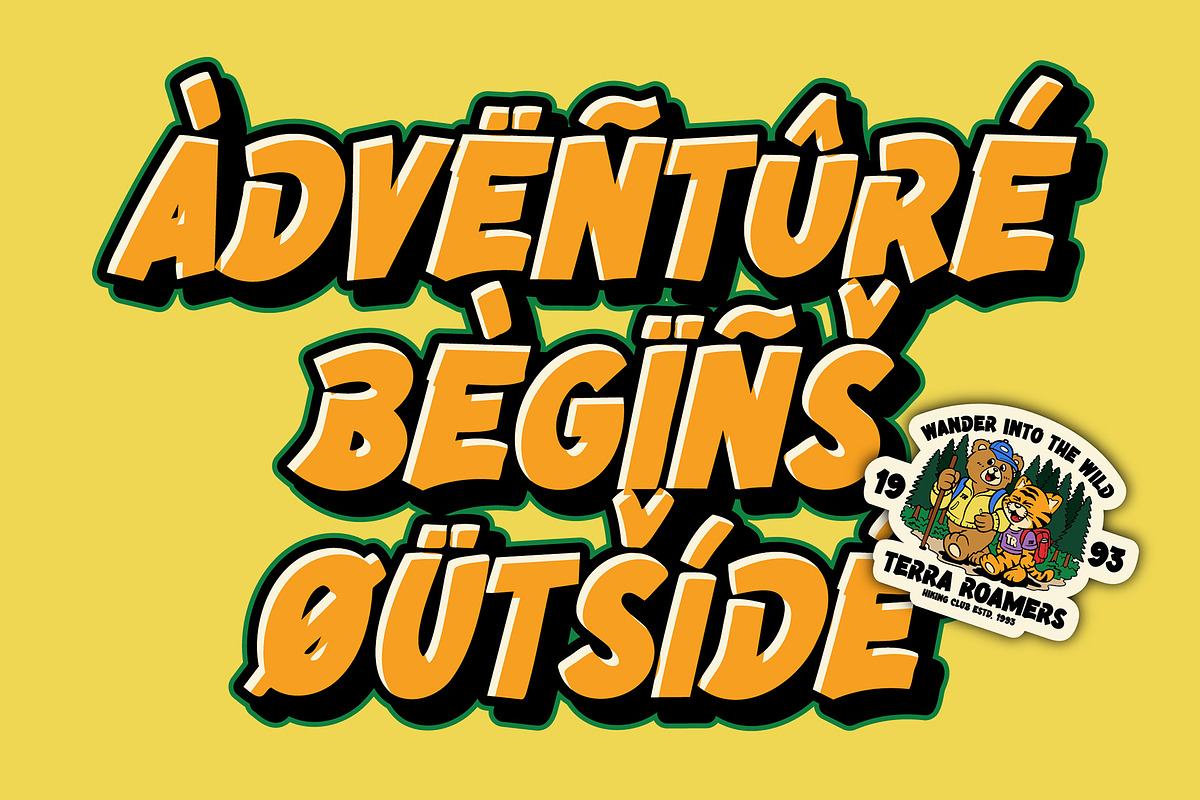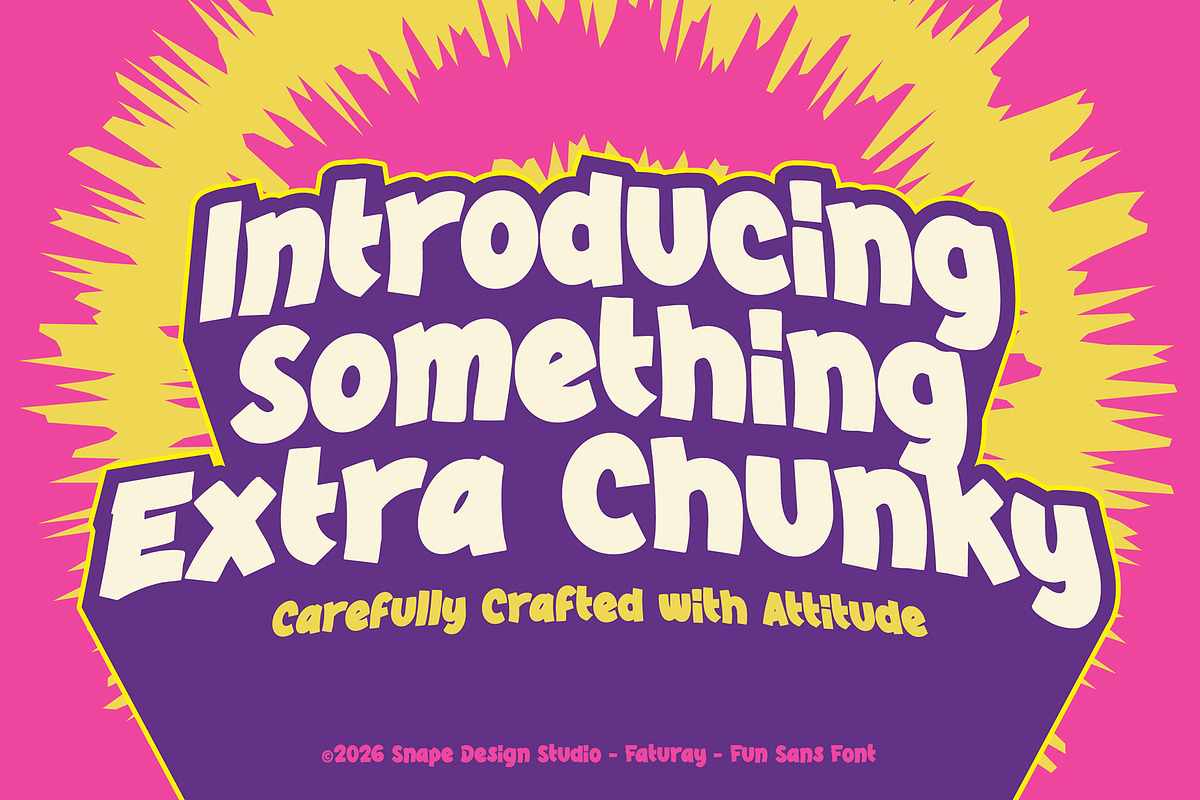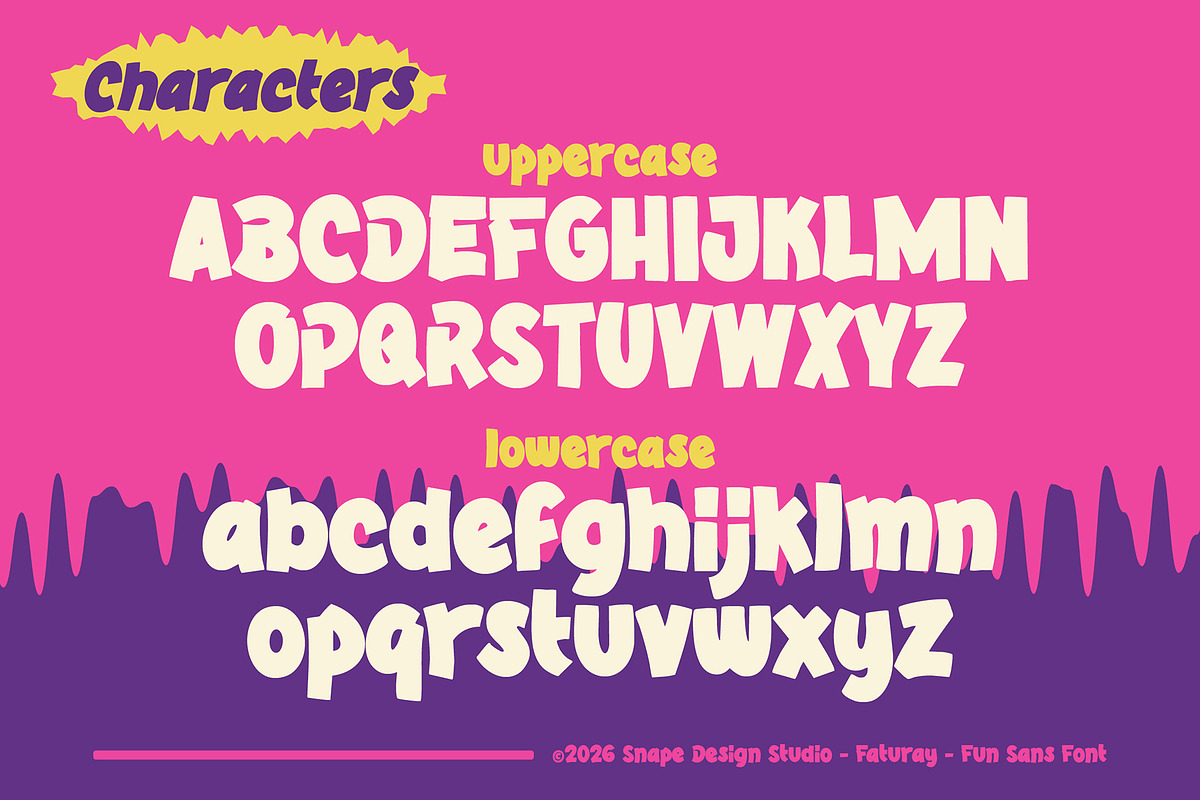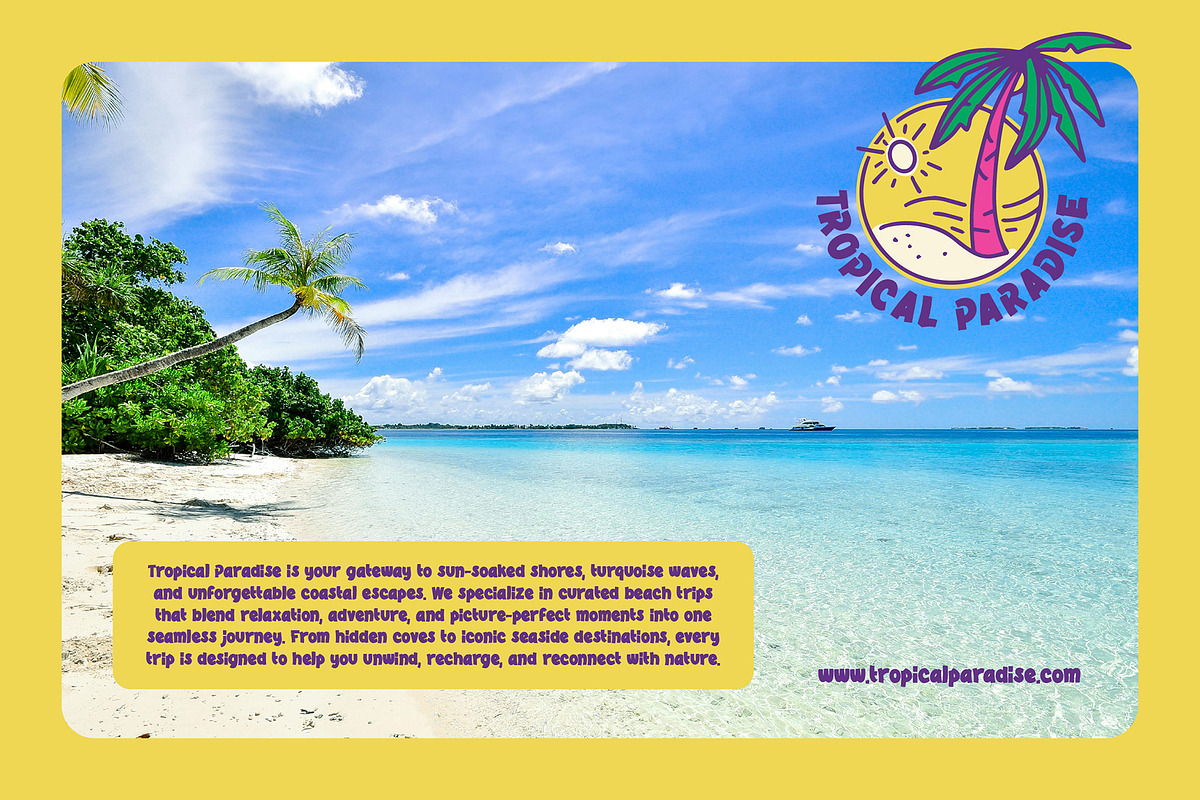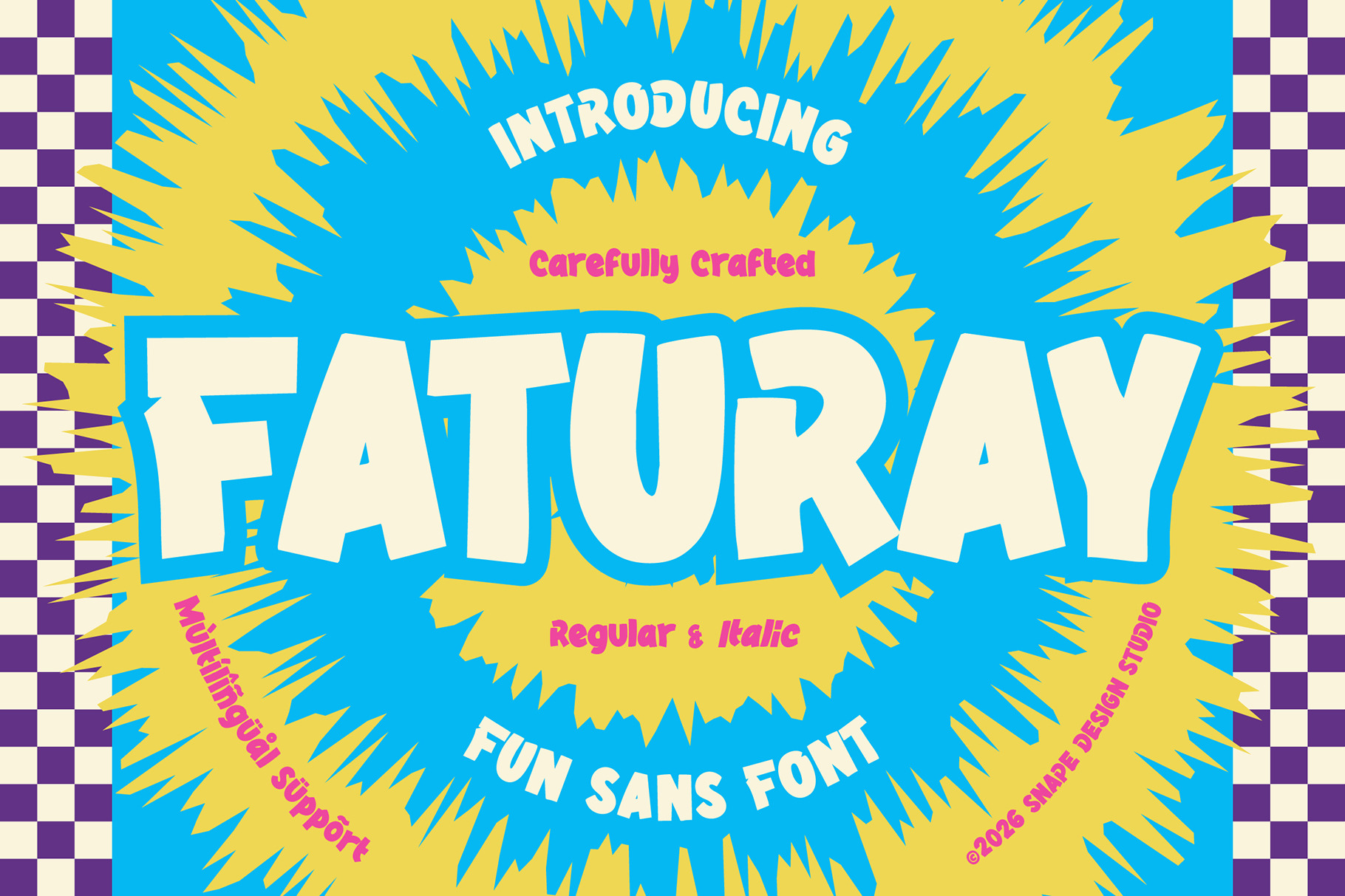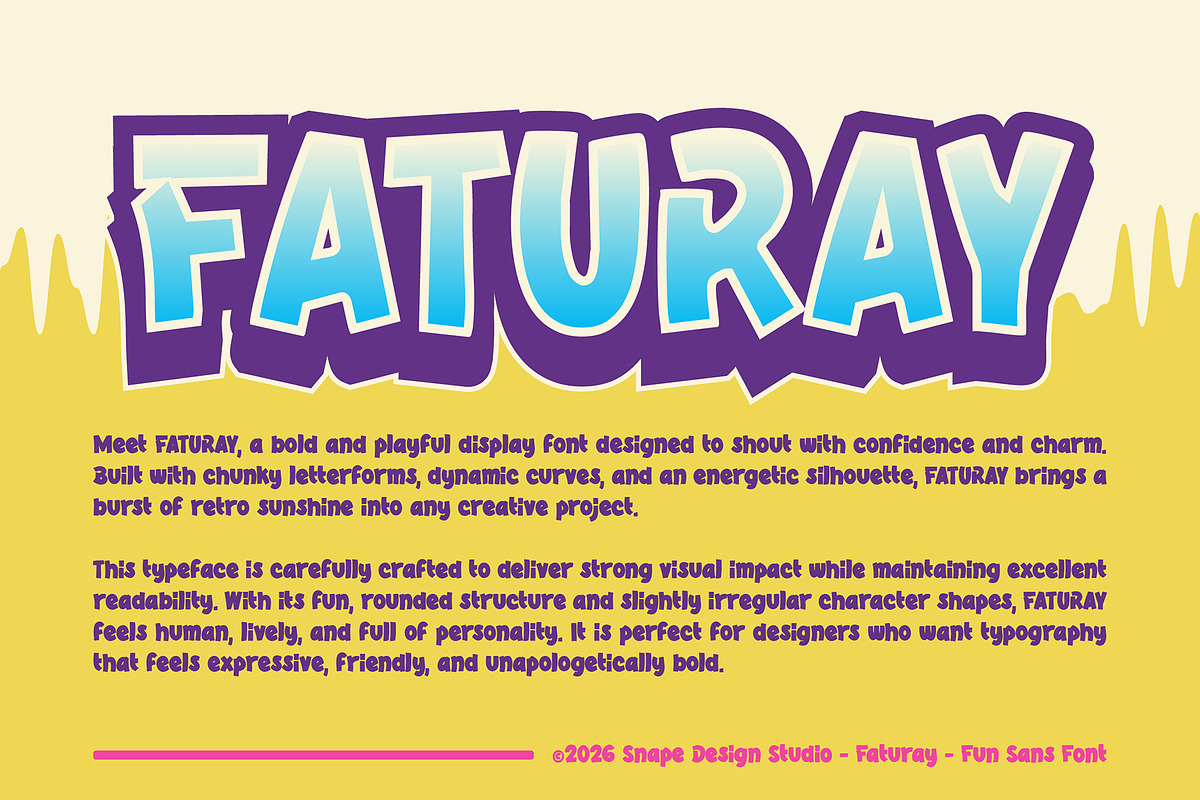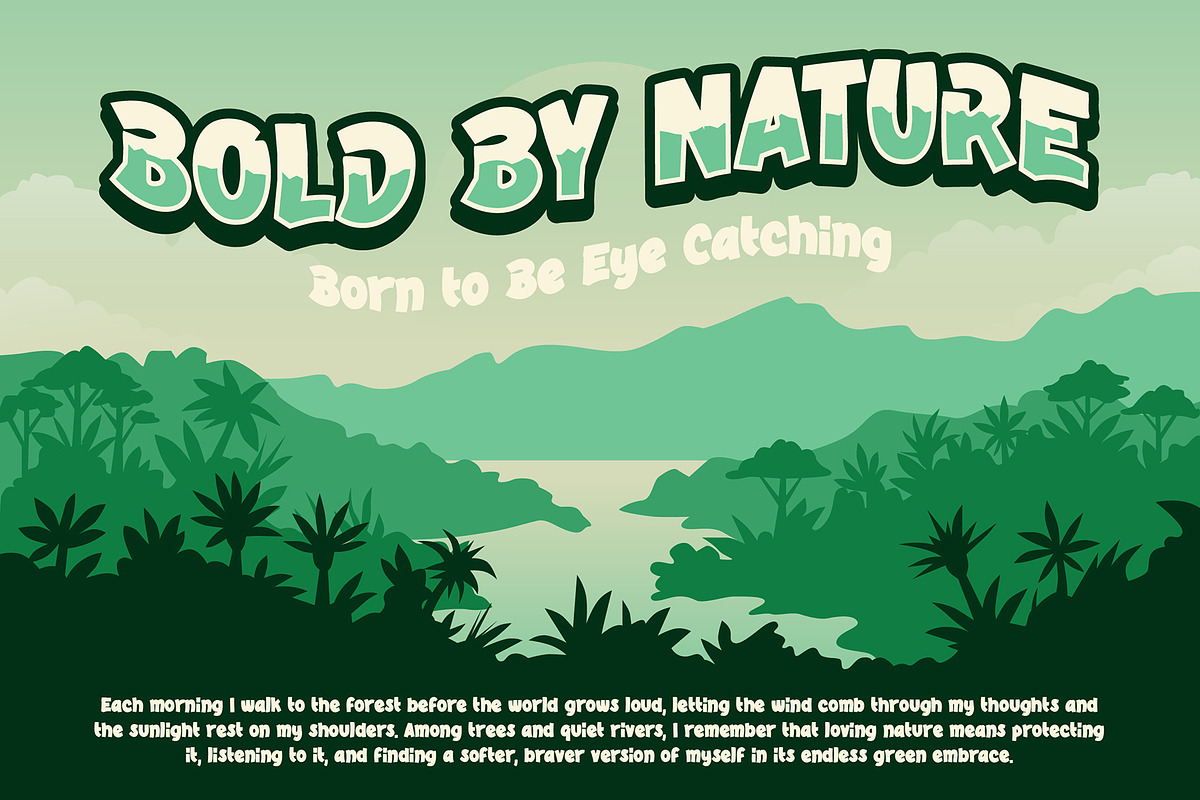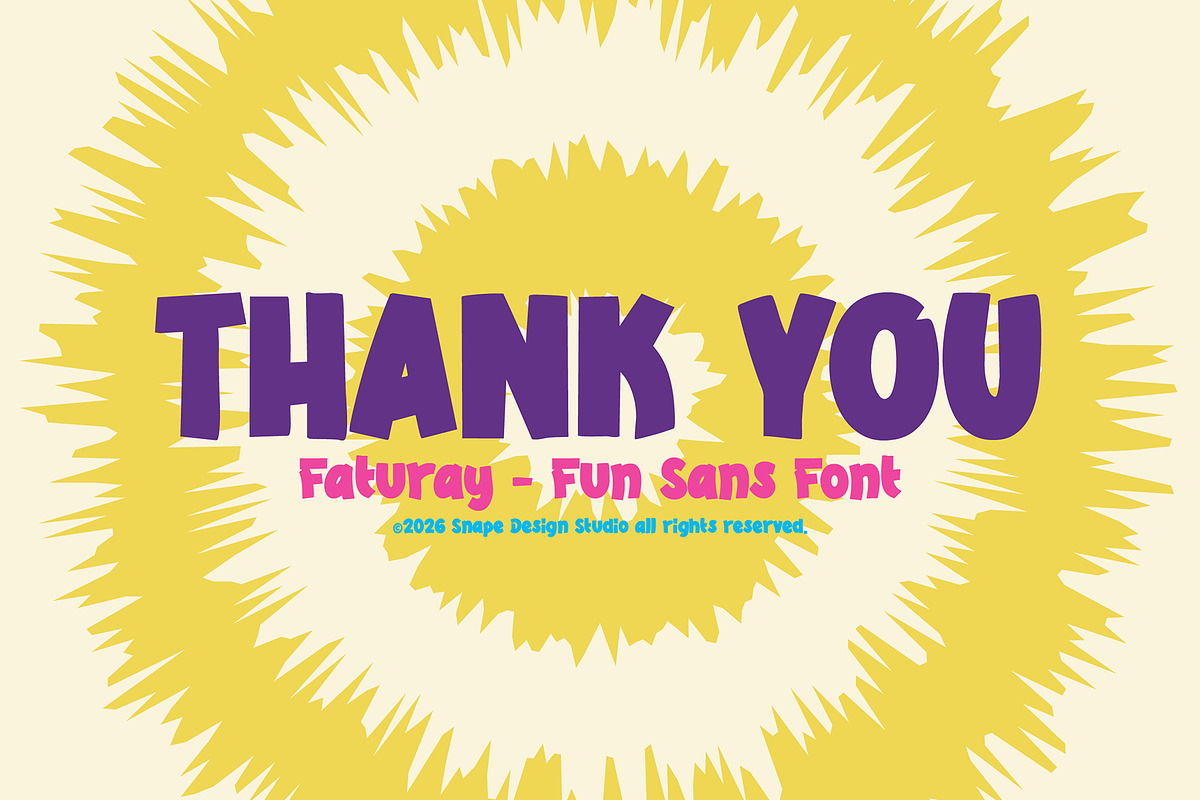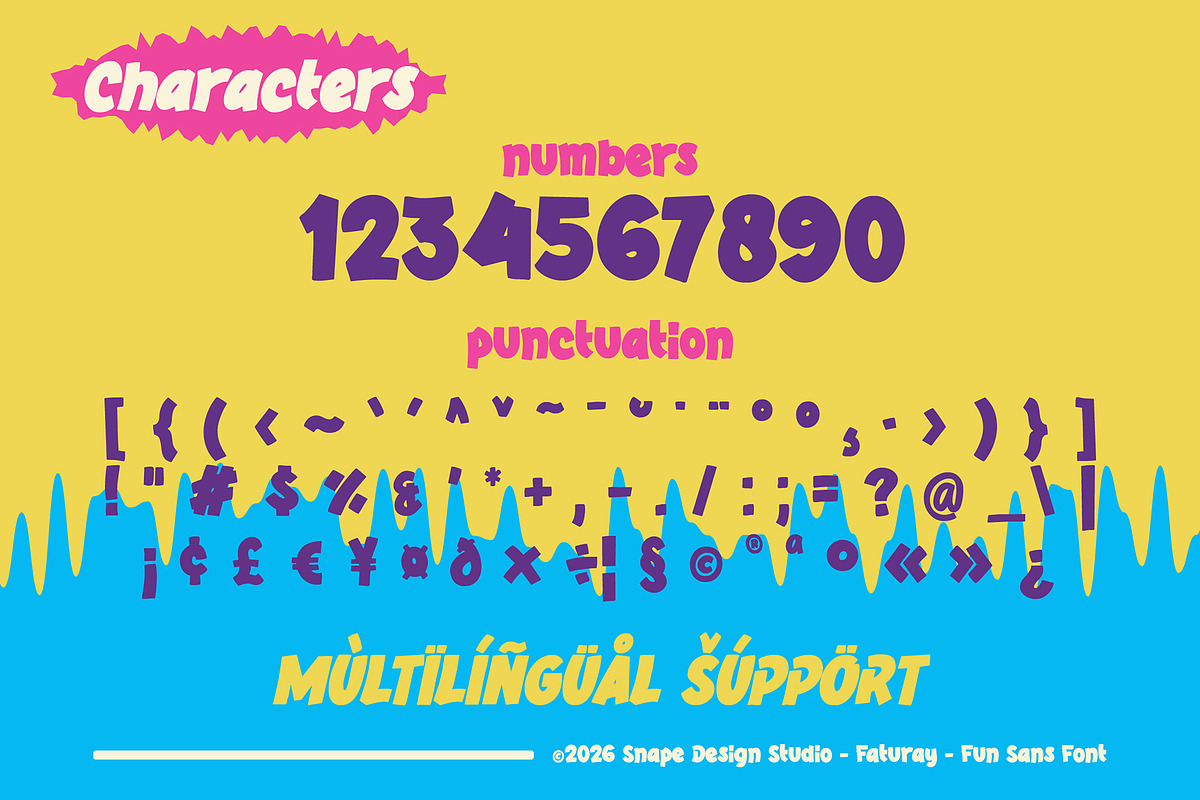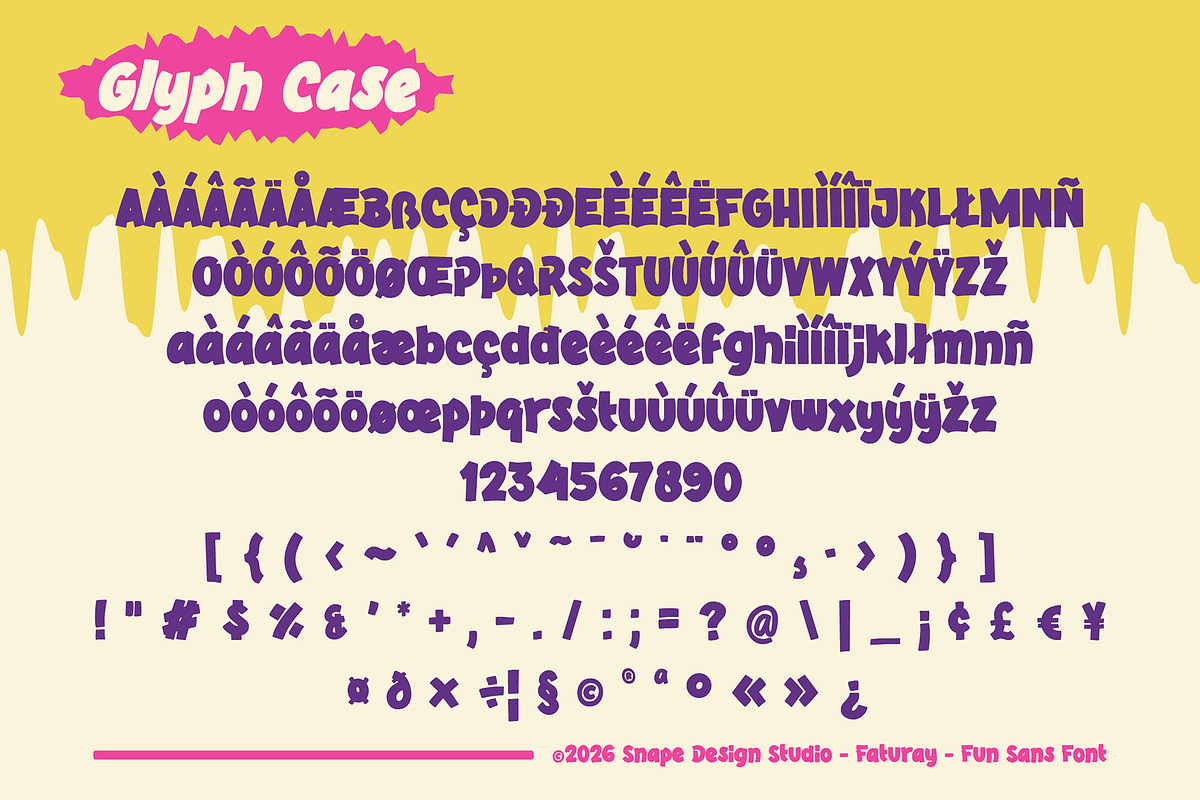
Faturay - Fun Sans Font
Meet FATURAY, a bold and playful display font designed to shout with confidence and charm. Built with chunky letterforms, dynamic curves, and an energetic silhouette, FATURAY brings a burst of retro sunshine into any creative project.
This typeface is carefully crafted to deliver strong visual impact while maintaining excellent readability. With its fun, rounded structure and slightly irregular character shapes, FATURAY feels human, lively, and full of personality. It is perfect for designers who want typography that feels expressive, friendly, and unapologetically bold.
Whether you are creating branding for a playful business or designing eye-catching social media graphics, FATURAY commands attention instantly. Its bold weight and organic rhythm make it ideal for designs that need to stand out in crowded visual spaces.
If you are looking for a bold display font, playful sans serif, fun headline font, or retro-inspired typography with modern versatility, FATURAY is ready to elevate your next creative project. Bring energy. Bring confidence. Bring FATURAY into your design toolkit today.